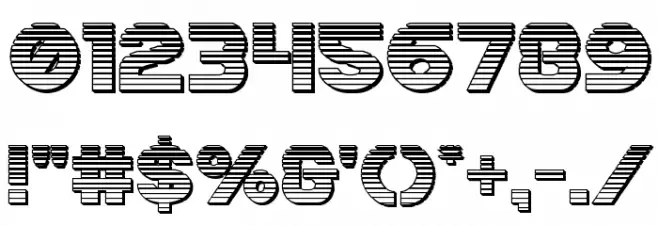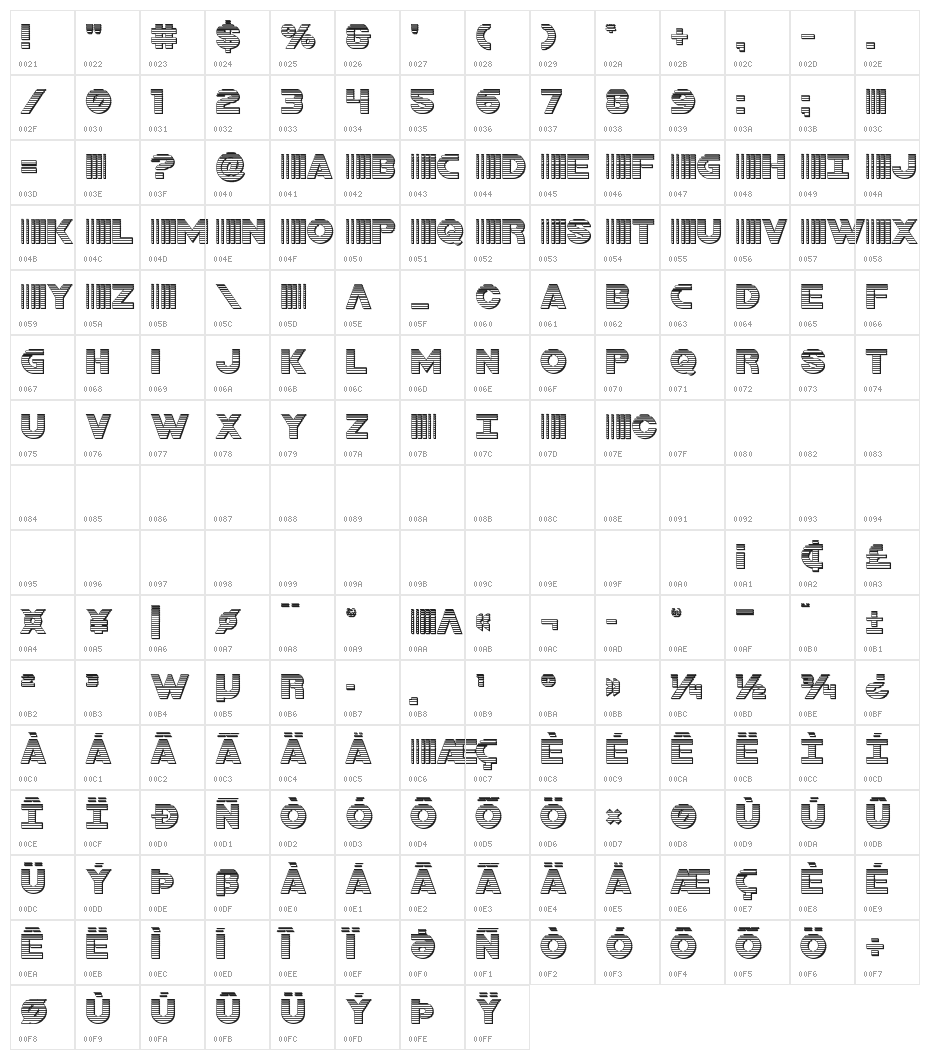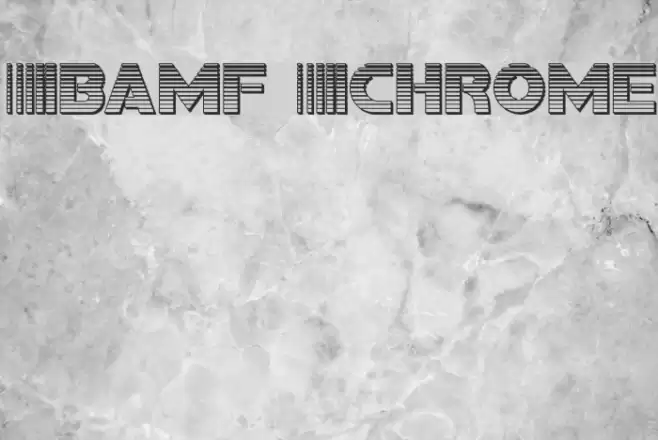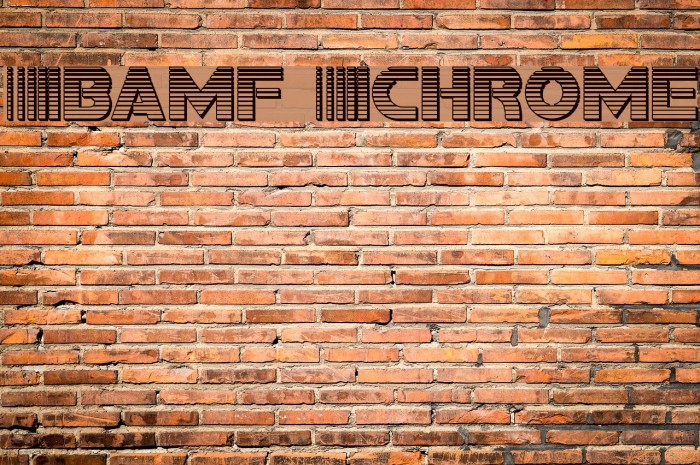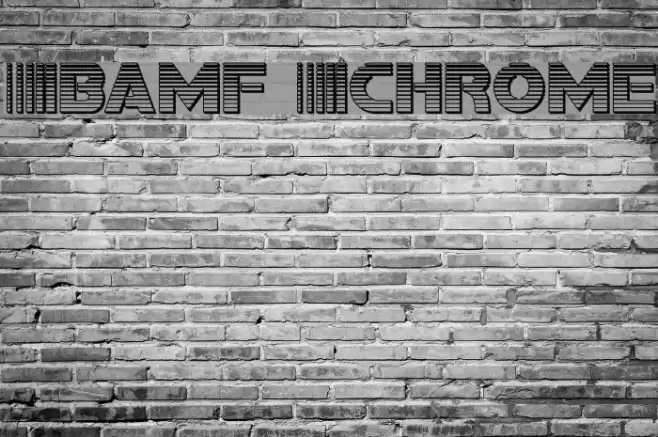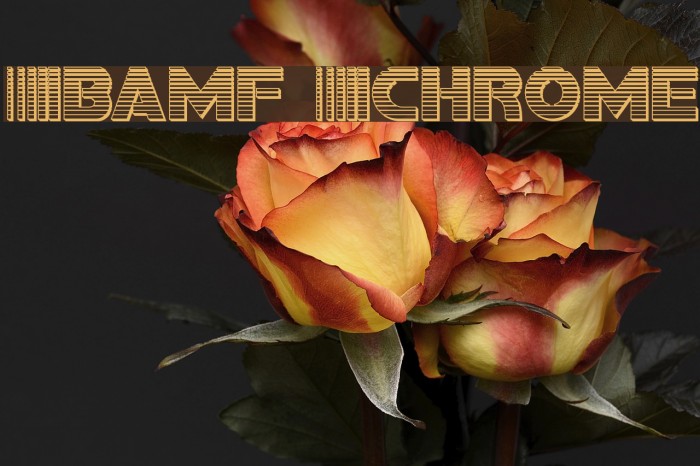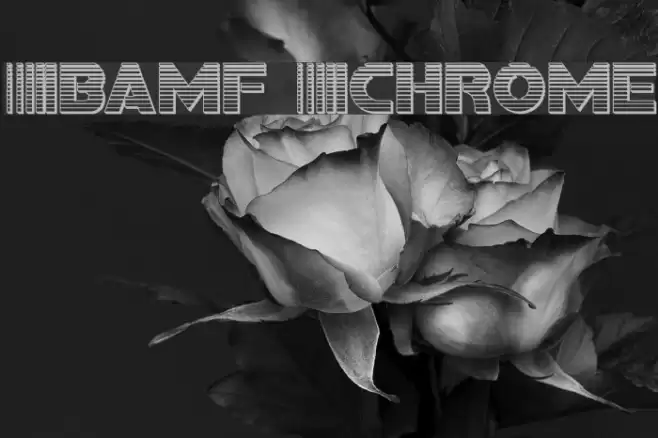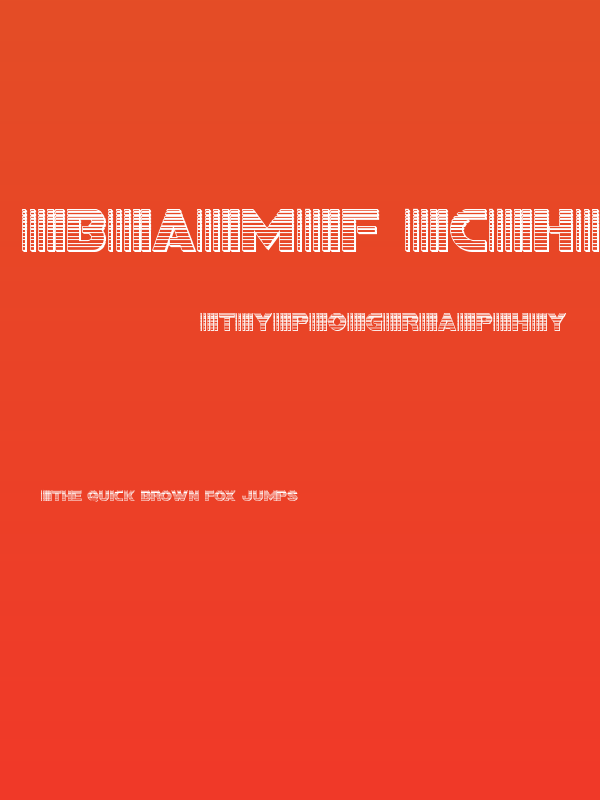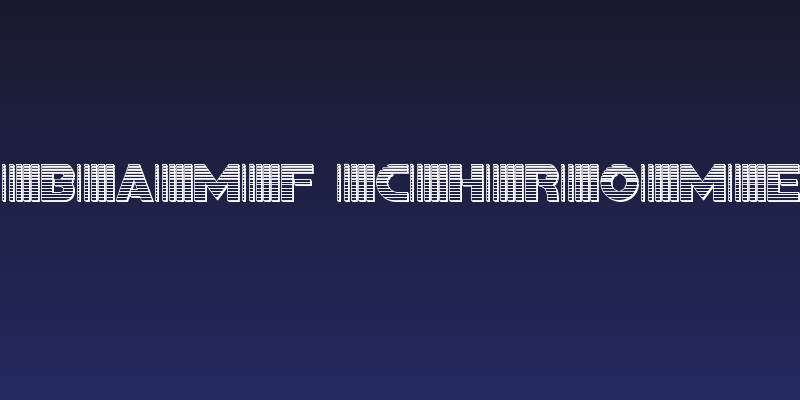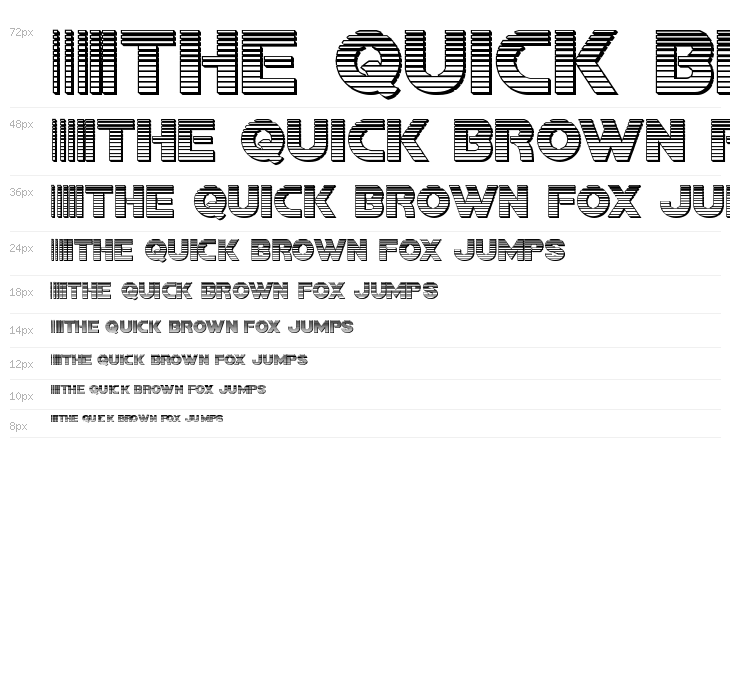
Bamf Chrome Font
Bamf Chrome Description
This font features a bold, geometric design with a unique striped pattern running horizontally through each character. The uppercase letters are prominent and structured, giving a sense of strength and modernity. The numbers and special characters follow the same design, maintaining consistency across the font. The lines within each character create a sense of movement and energy, making it ideal for eye-catching designs. The font's distinct style is both decorative and functional, suitable for various creative applications.
| Proposed Projects | Ideal for posters, logos, and branding materials that require a strong visual impact. |